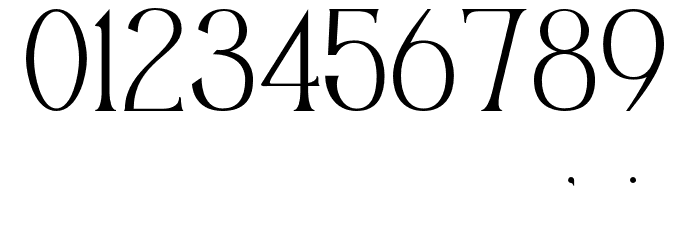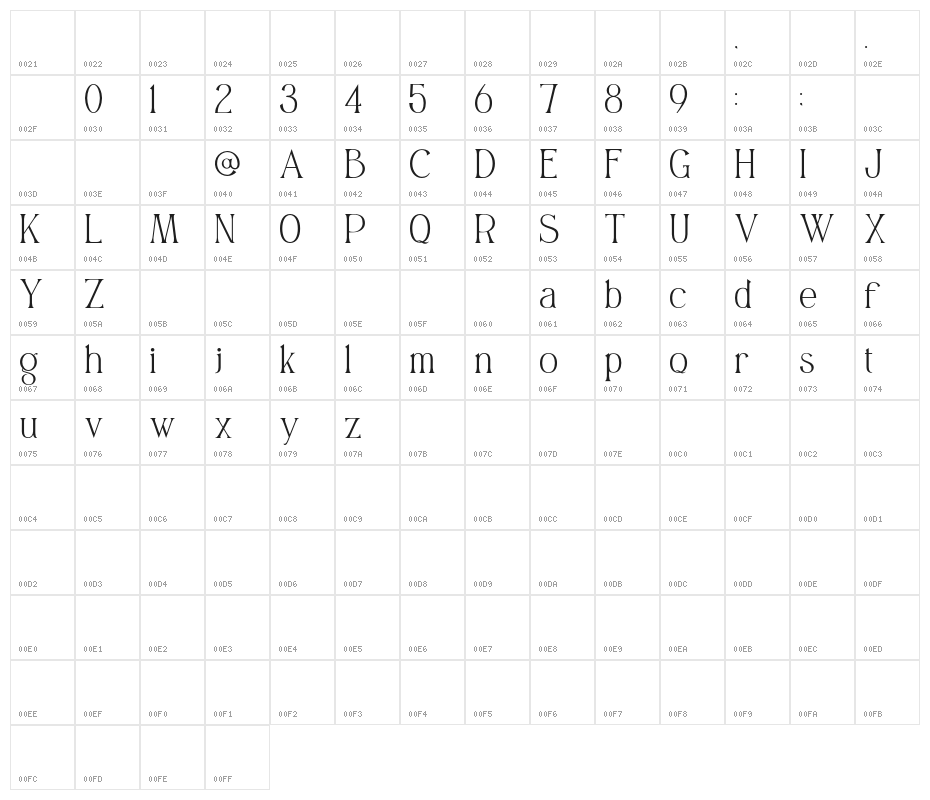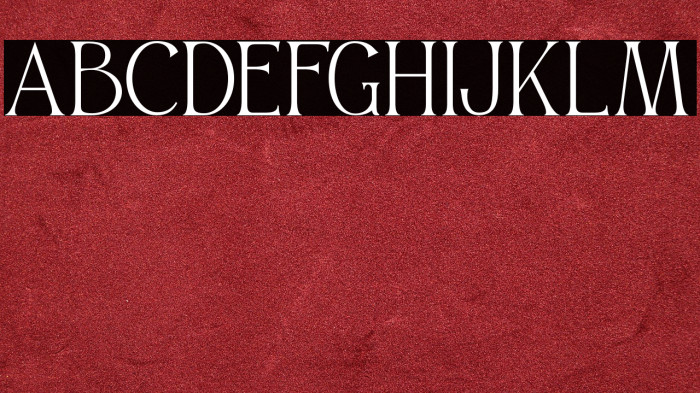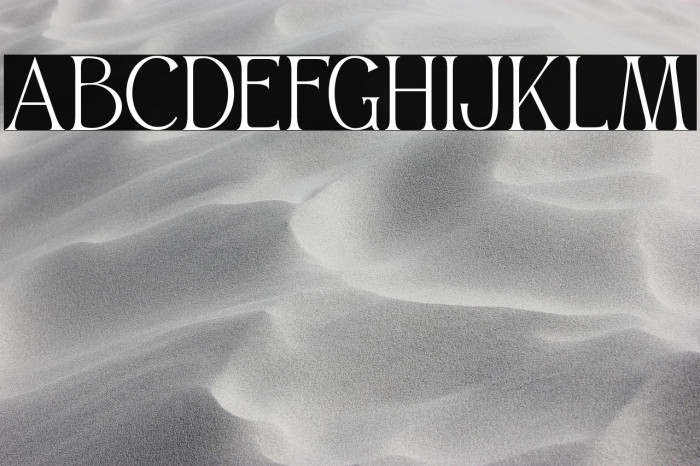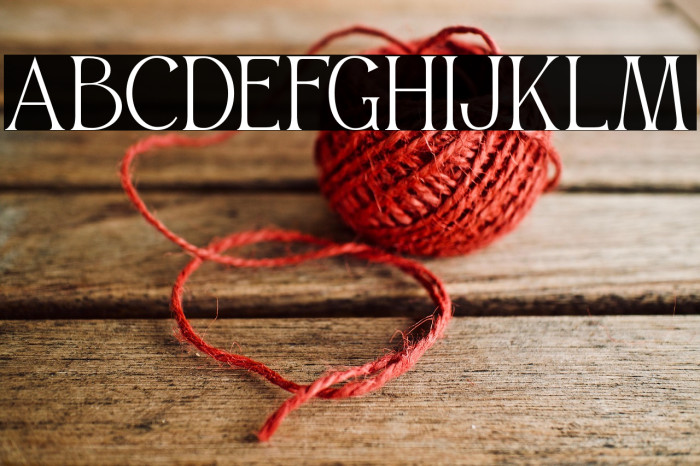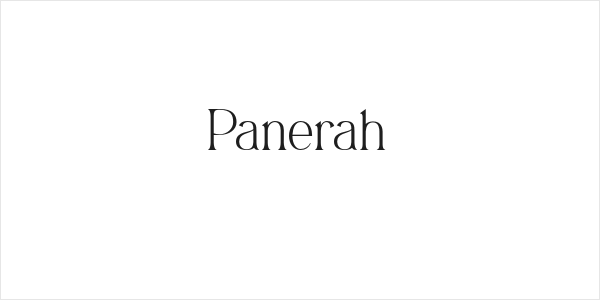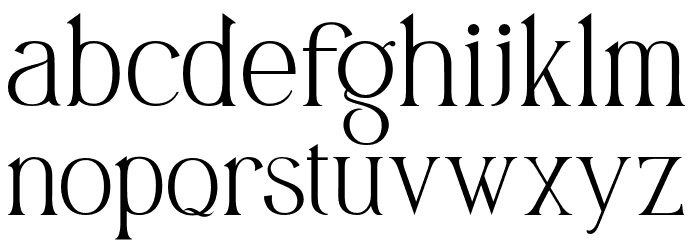
Panerah Font
Panerah Description
This font exhibits a classic serif style with elegant, elongated strokes and a refined appearance. The uppercase letters are tall and slightly narrow, giving a sophisticated and formal look. The lowercase letters maintain a consistent design, with smooth curves and sharp serifs that enhance readability. The numerals are well-proportioned, matching the overall aesthetic of the alphabet. Special characters are designed with the same attention to detail, ensuring a cohesive appearance across all glyphs. This font is suitable for projects that require a touch of elegance and tradition, such as formal invitations, editorial design, or branding for luxury products.